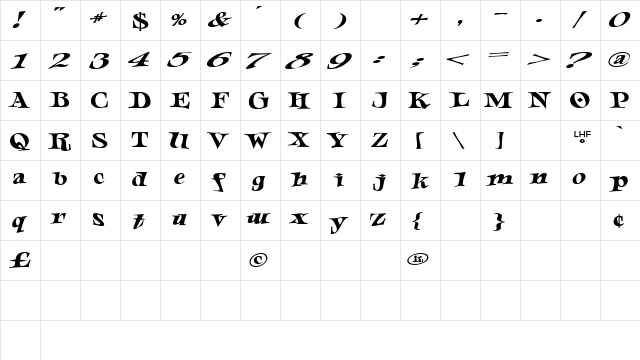
LHF Jester Extended Regular
Design Context for LHF Jester Extended Typeface
LHF Jester Extended is a composed and adaptable typeface that performs quietly and consistently across a wide range of design contexts.